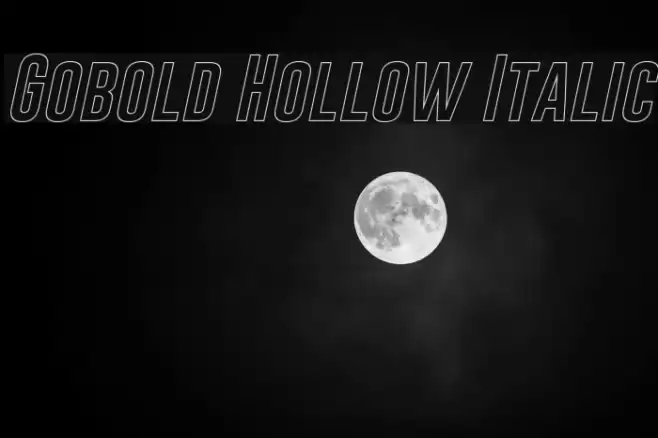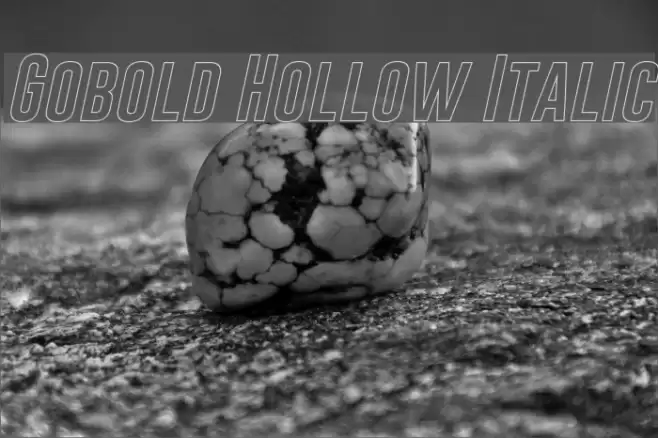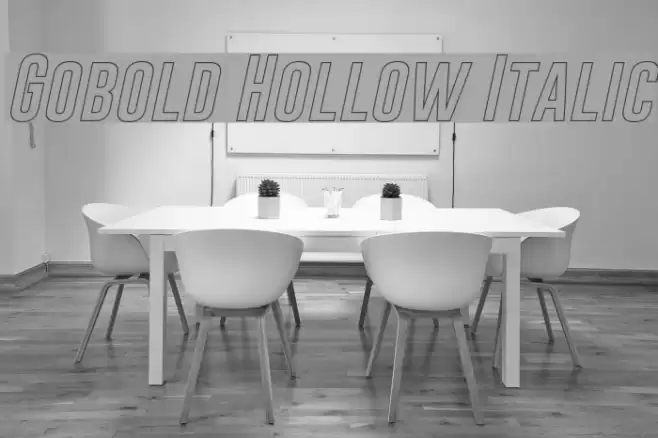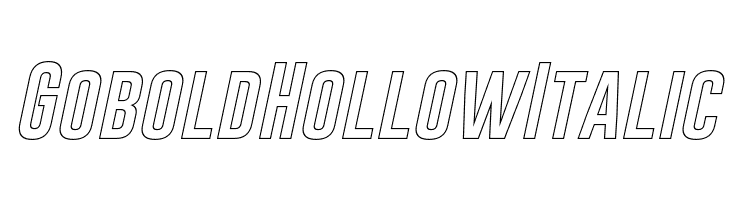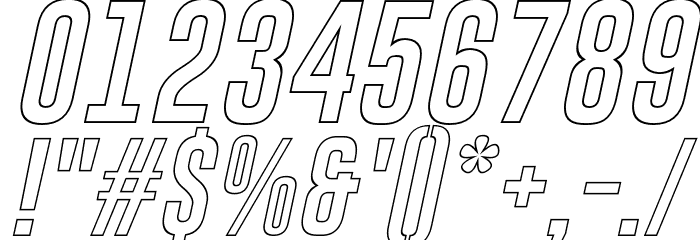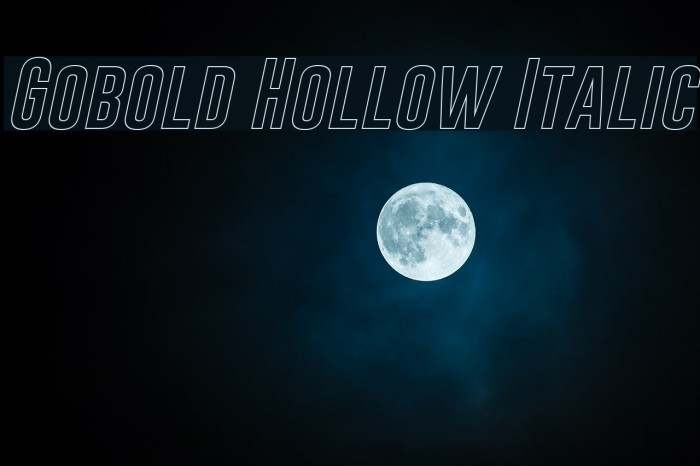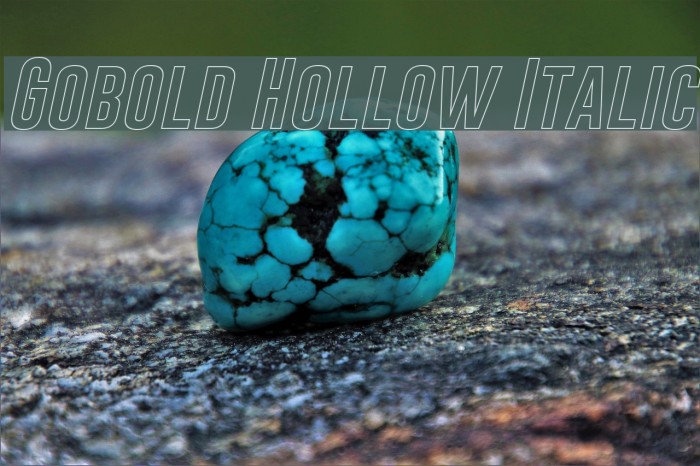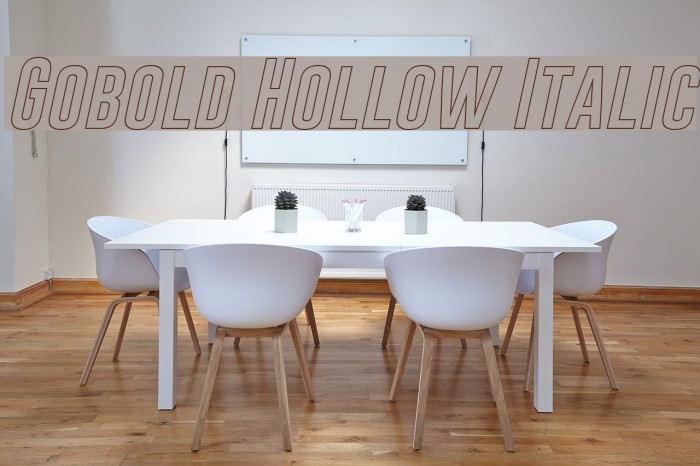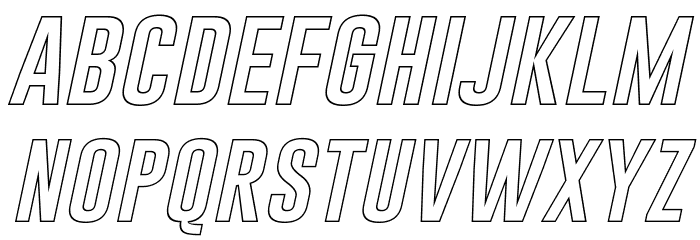
Gobold Hollow Italic
This font features a bold, hollow design with a distinct italic slant, giving it a dynamic and modern appearance. The uppercase and lowercase letters maintain a consistent style, characterized by clean lines and a geometric structure. The numbers and special characters follow the same aesthetic, ensuring uniformity across all glyphs. The hollow aspect of the font adds a unique touch, making it stand out while still being legible. Its design is suitable for creating eye-catching headlines or logos that require a contemporary and stylish look.
A bold, hollow, italic font with a modern and dynamic style.